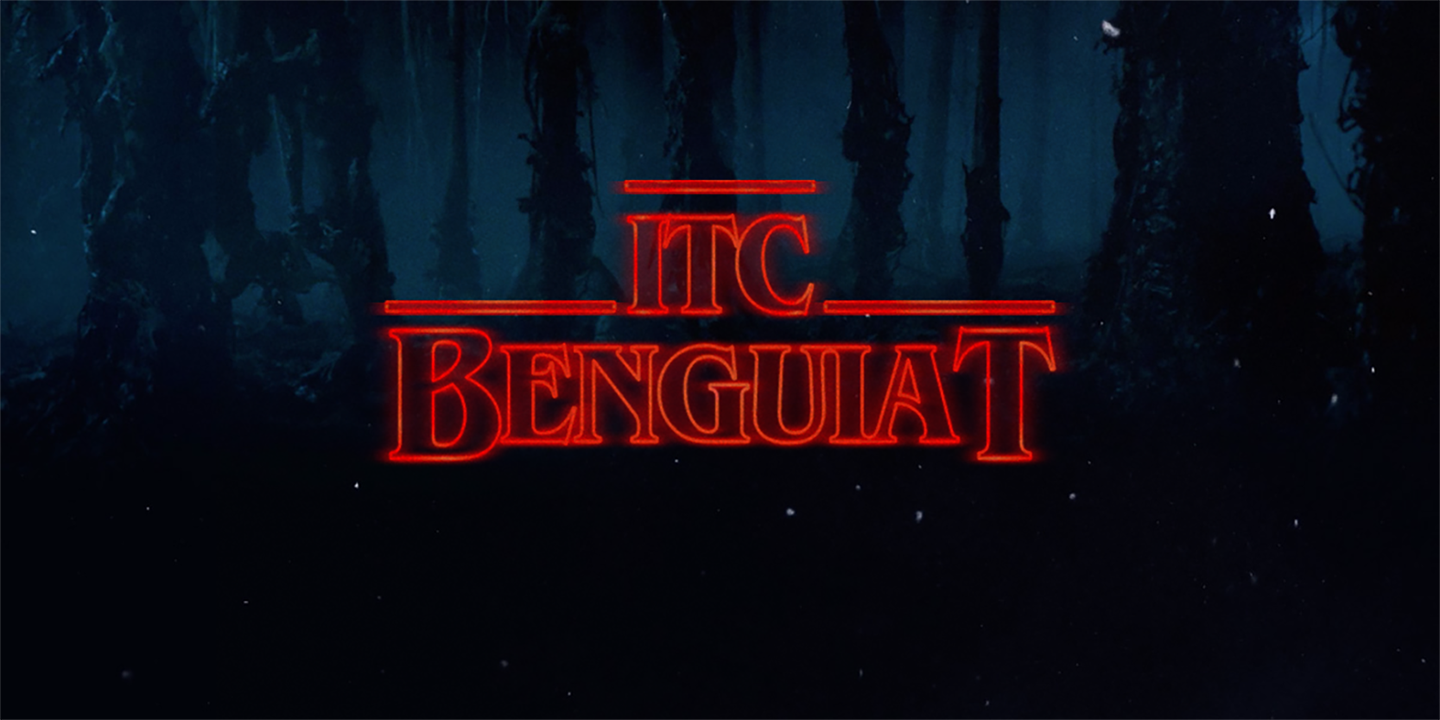
ITC Benguiat Font is a highly distinctive and ornate serif typeface, instantly recognizable for its opulent curves, exaggerated x-height, and unique flair. Designed by Ed Benguiat, it embodies a flamboyant yet elegant aesthetic, making it an excellent choice for luxury branding, high-end editorial design, book covers (especially fantasy or dramatic genres), and film titles. Imagine it gracing the opening credits of a classic TV series (like Stranger Things), providing an air of sophisticated intrigue for a perfume advertisement, or adding a dramatic touch to event invitations for a grand gala. This font is also superb for music album art, boutique signage, and any project where opulence, character, and a visually captivating identity are key. It doesn't just display text; it performs, drawing the eye with its intricate beauty.
What makes ITC Benguiat Font so exciting is its audacious design that embraces decorative elements without sacrificing readability. It possesses a distinctive visual richness, with meticulously crafted details and a unique rhythm that sets it apart from more conventional serifs. This characteristic makes it a fantastic choice for designers looking to infuse their projects with a sense of theatricality, vintage charm, and an unforgettable visual impression. It’s a font that speaks with a lavish and expressive voice, making it ideal for brands and content creators who want to convey elegance, exclusivity, and a truly artistic flair. Its captivating brilliance can make any headline or short phrase feel exceptionally grand and distinguished.
The ITC Benguiat Font family is comprehensive, offering a range of weights and styles to provide extensive design flexibility and allow for nuanced typographic expressions. You can generally expect to find key members that support diverse layout needs, such as:
• ITC Benguiat Book
• ITC Benguiat Medium
• ITC Benguiat Bold
• ITC Benguiat Heavy
• ITC Benguiat Book Italic
• ITC Benguiat Medium Italic
• ITC Benguiat Bold Italic
• ITC Benguiat Heavy Italic
• ITC Benguiat Gothic (a related sans-serif companion)
• ITC Benguiat Headline (a display version often with tighter spacing)
These various weights and styles, often accompanied by features like ligatures and small caps, empower designers to create effective visual hierarchies, emphasize important information, and maintain a consistent, opulent, and highly impactful look throughout all digital and print assets. The opportunity to utilize ITC Benguiat Font Free Download is an excellent way to experience its unique charm and expressive potential for your personal projects.